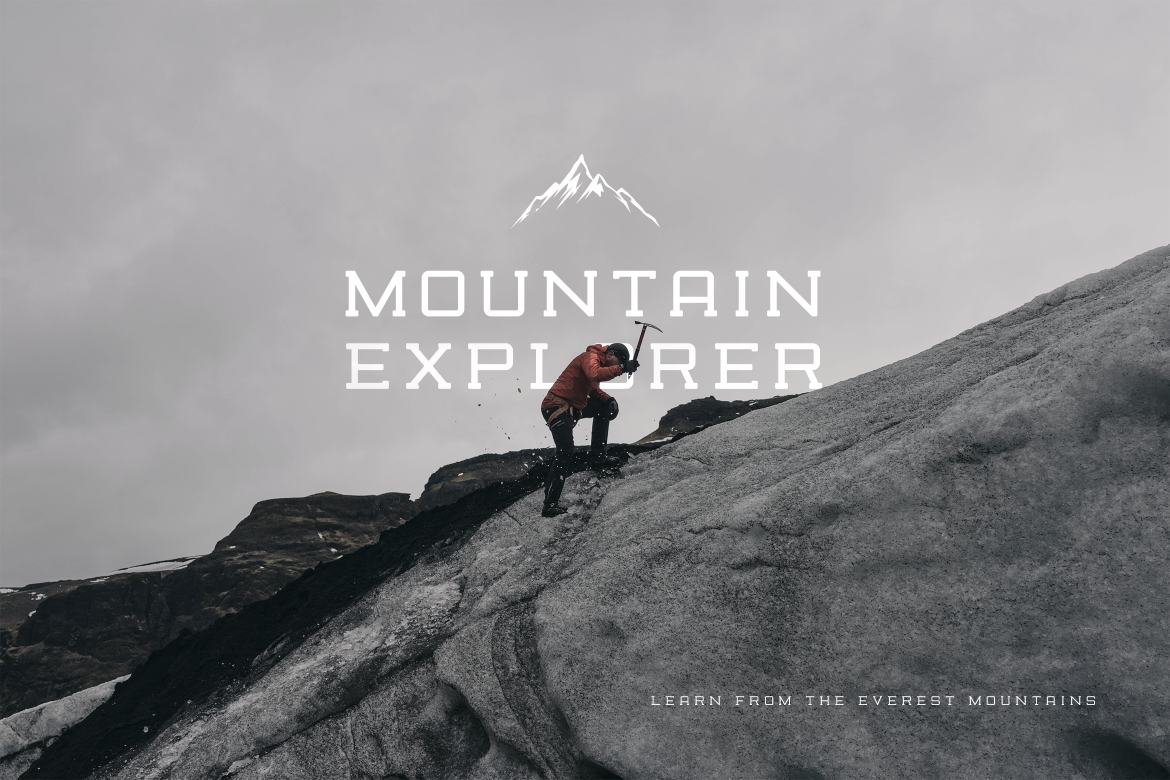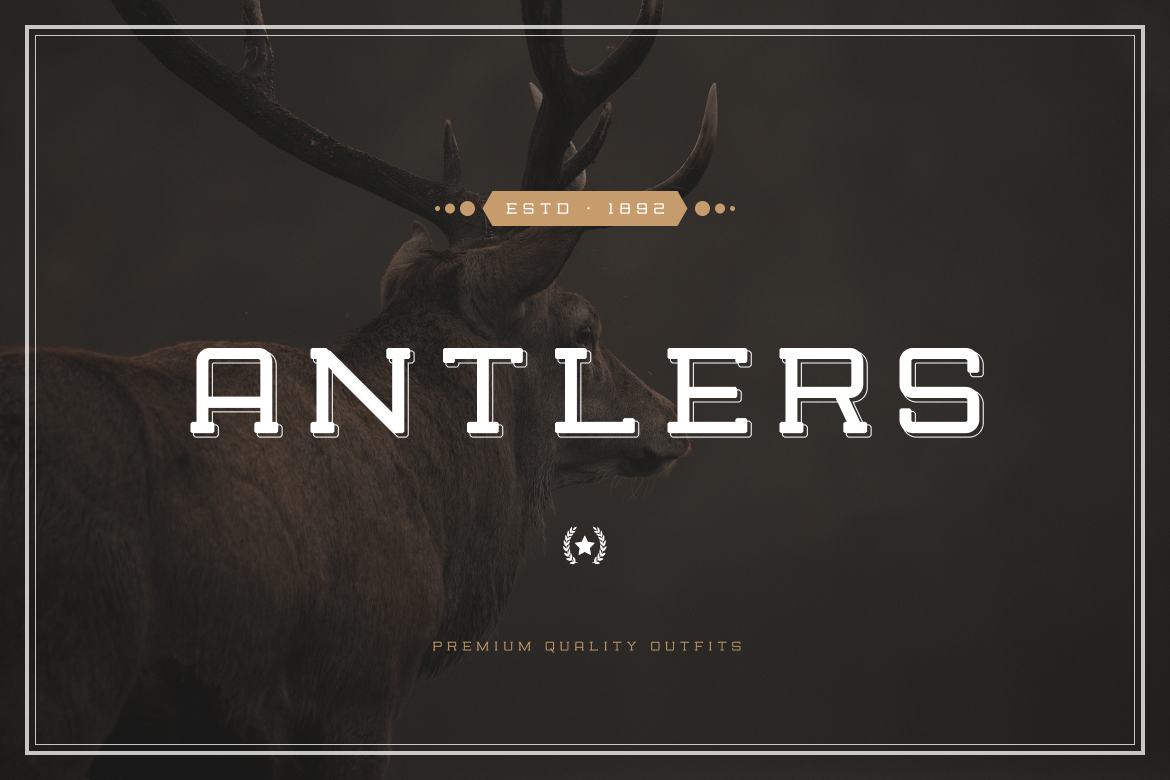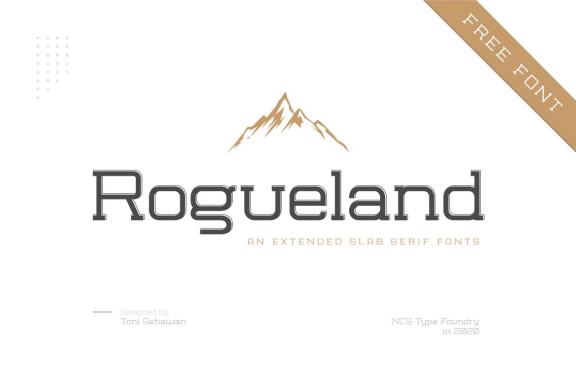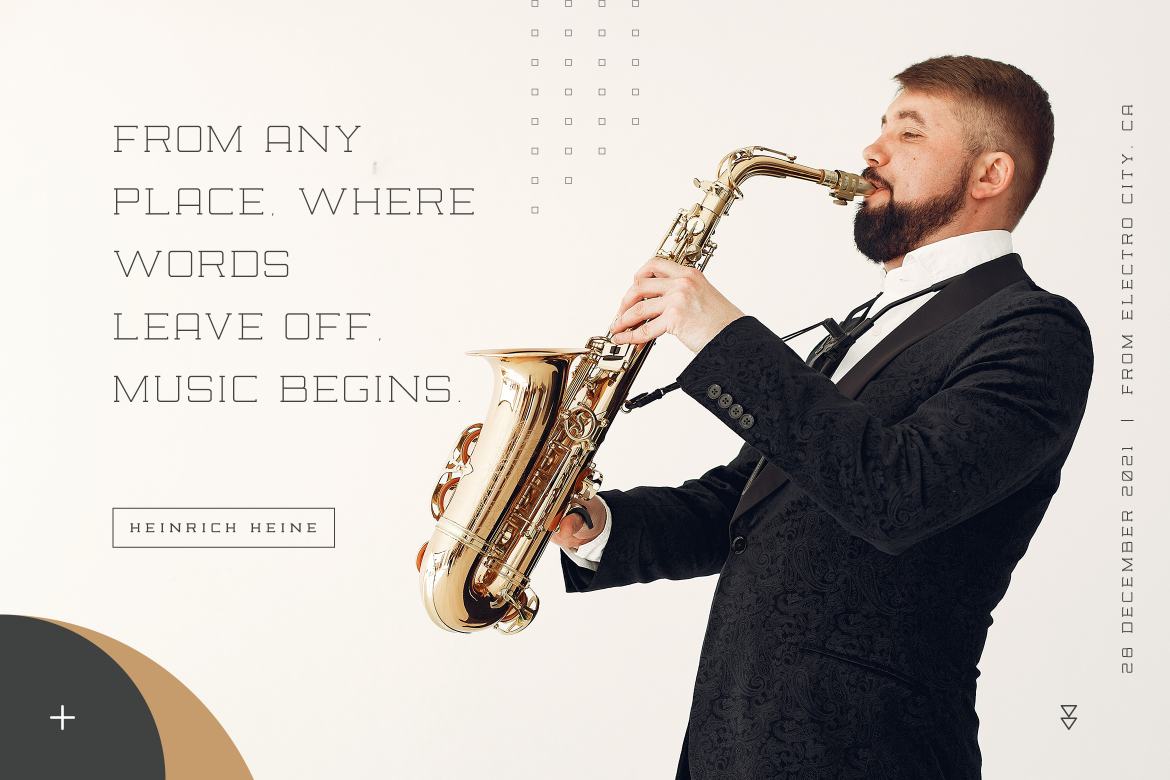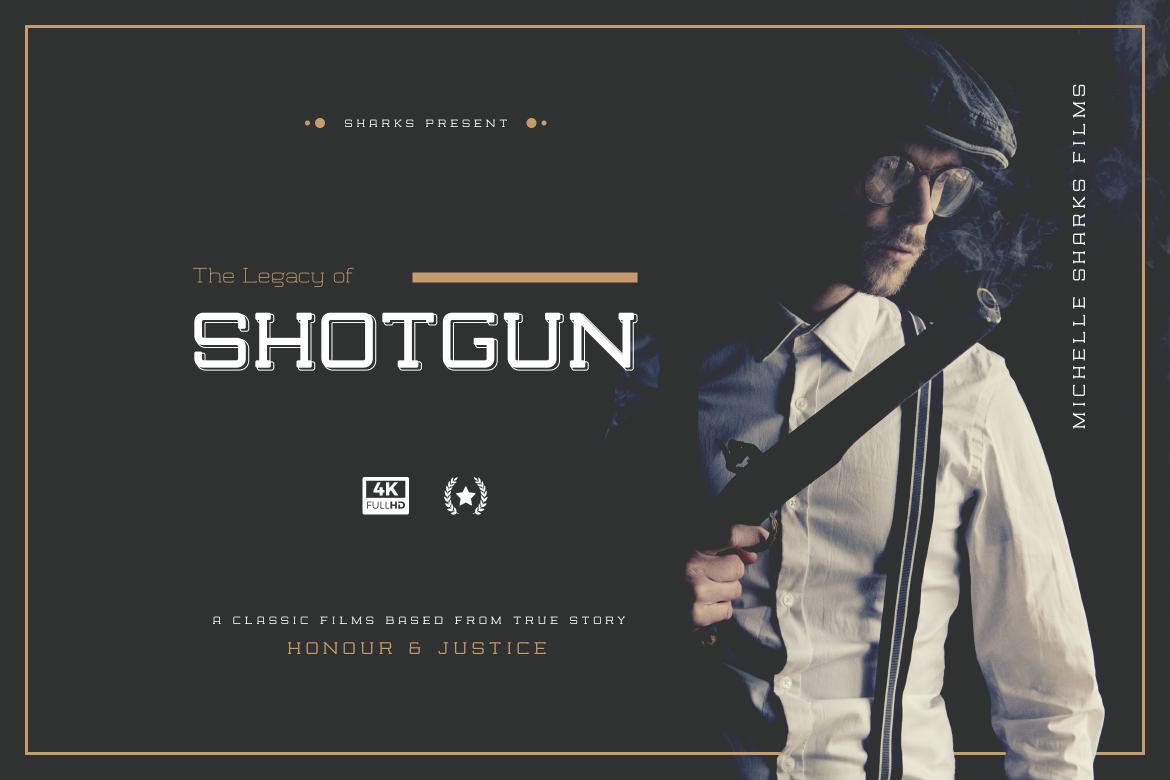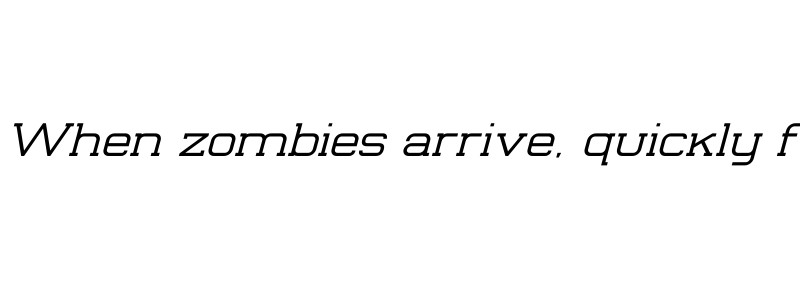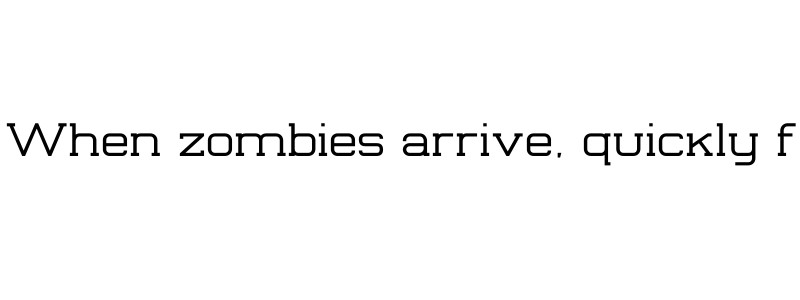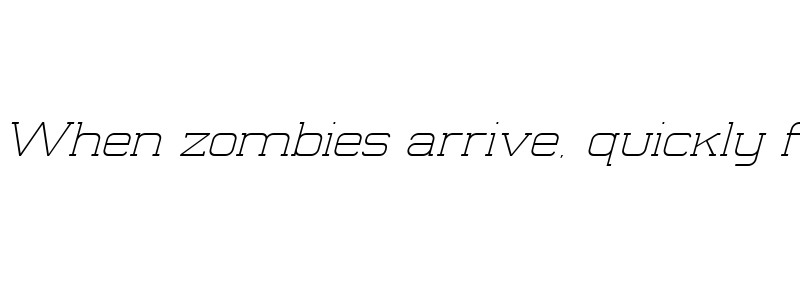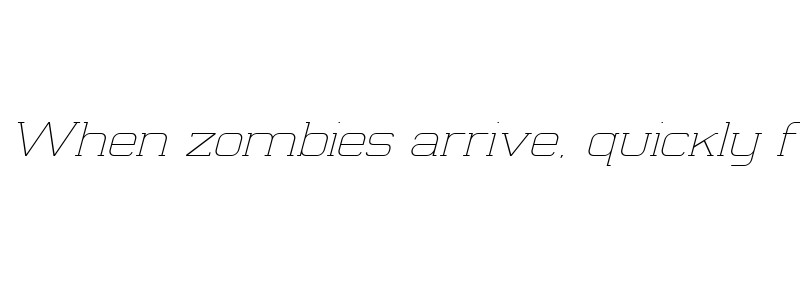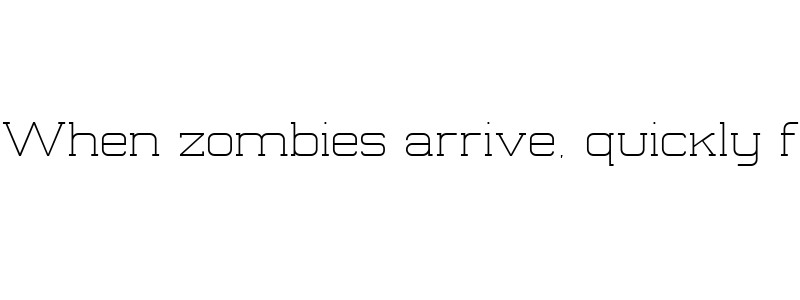
NCS Rogueland - Free Slab Serif Font
NCS Rogueland Slab is a techno styled and strong balance between pointed corners and smooth curves. Perfect for all purposes but especially for headlines.
• perfect for headline, logo, and business branding
• techno styled slab serif font